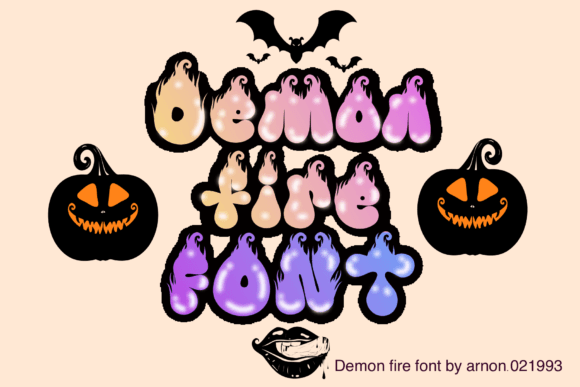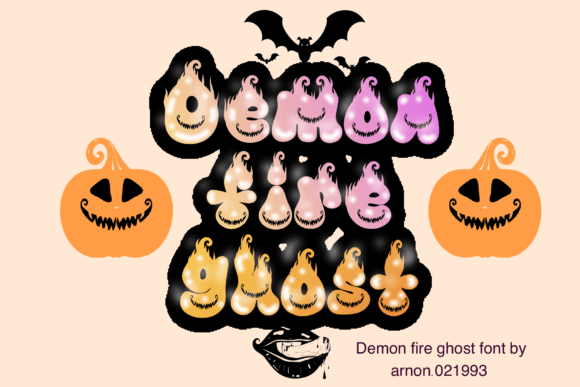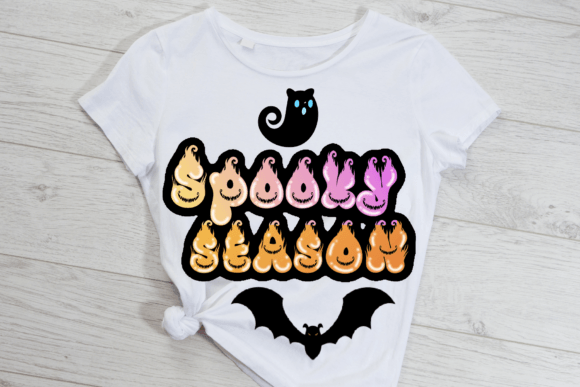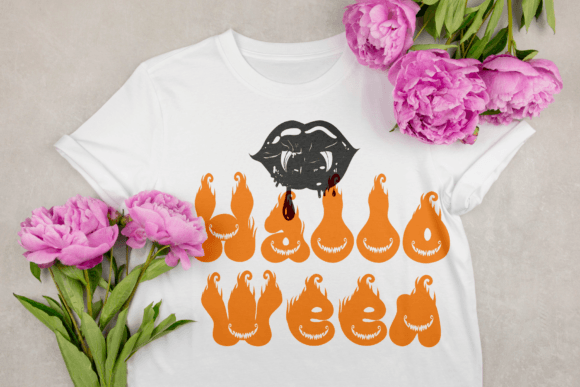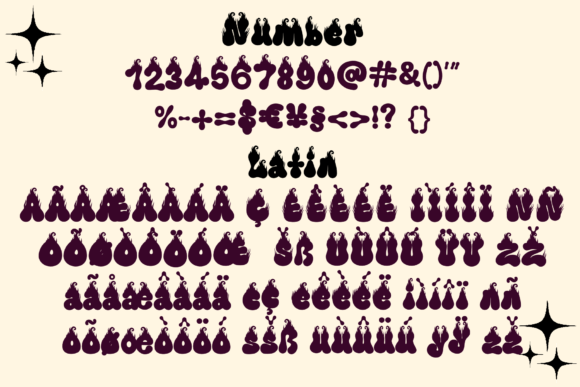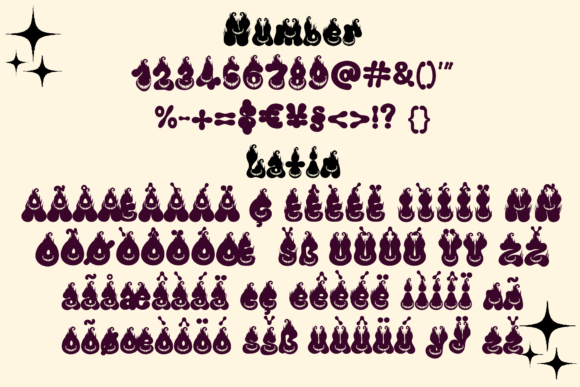
Introduction to Demon Fire Duo Font
Demon Fire font is a spooktacular and whimsically eerie typeface that captures the spirit of Halloween.
With its dancing flames and mischievous ghostly figures, this font adds a playful touch of enchantment to your spooky designs and decorations Perfect for adding a dash of devilish delight to party invitations, posters, and more.